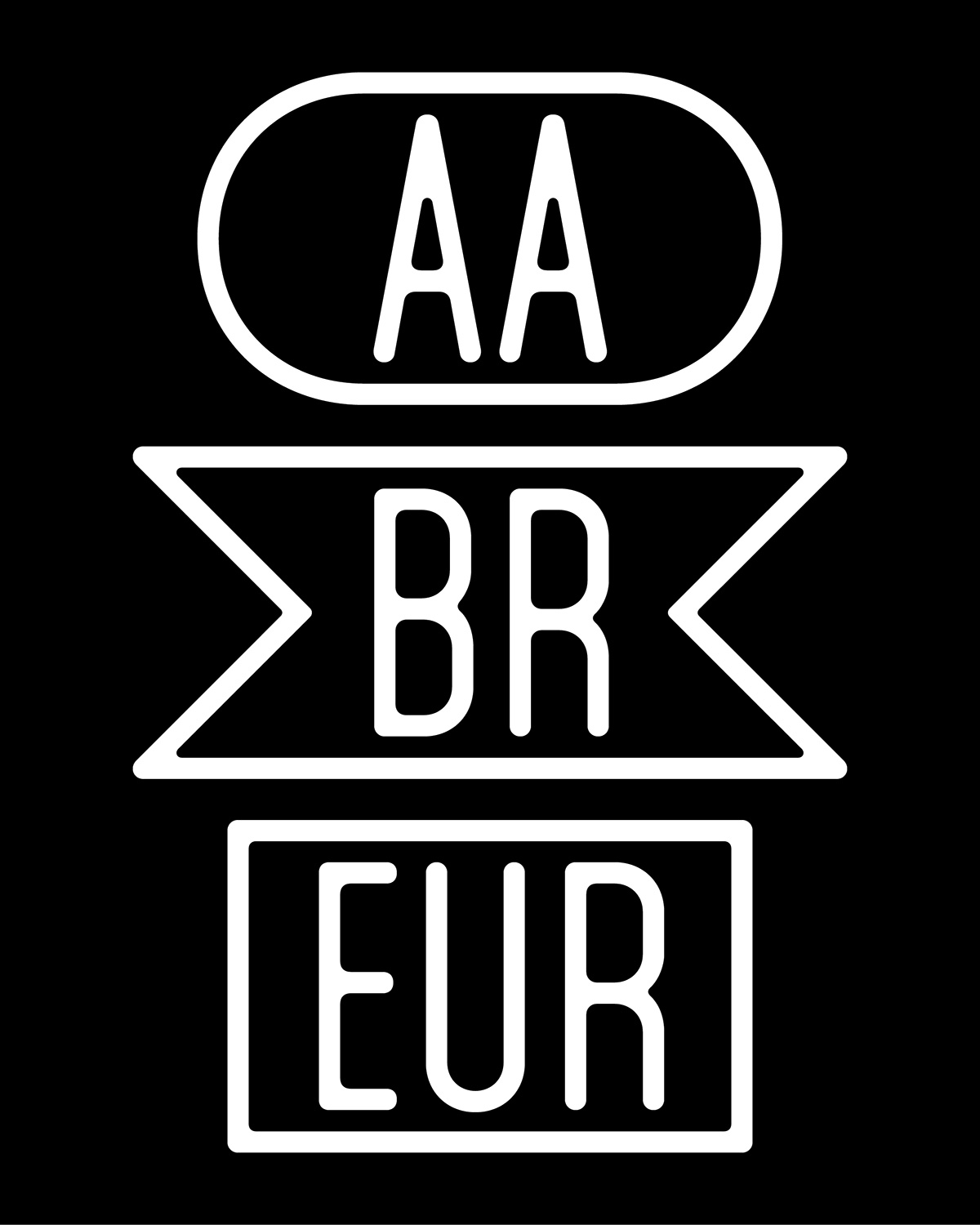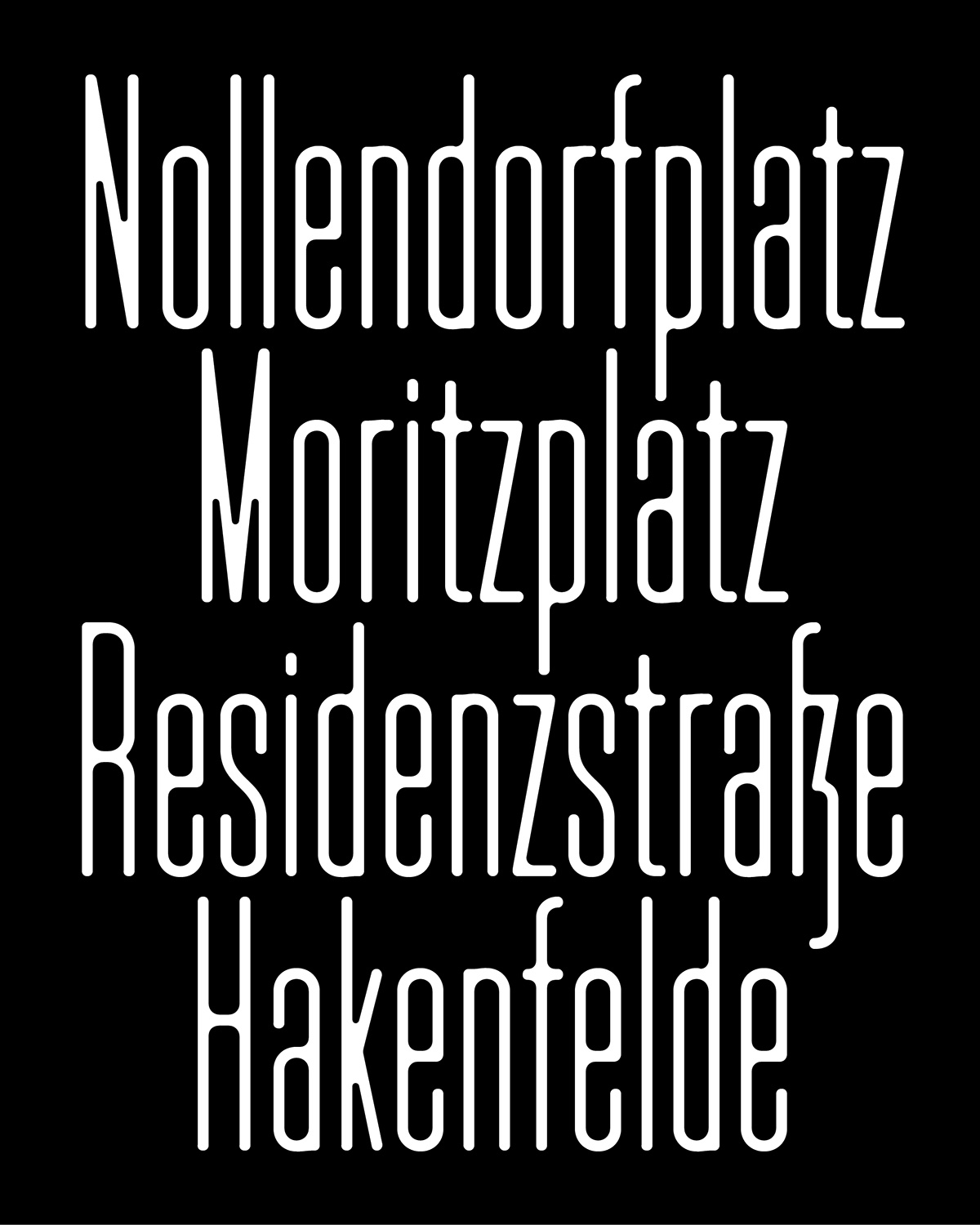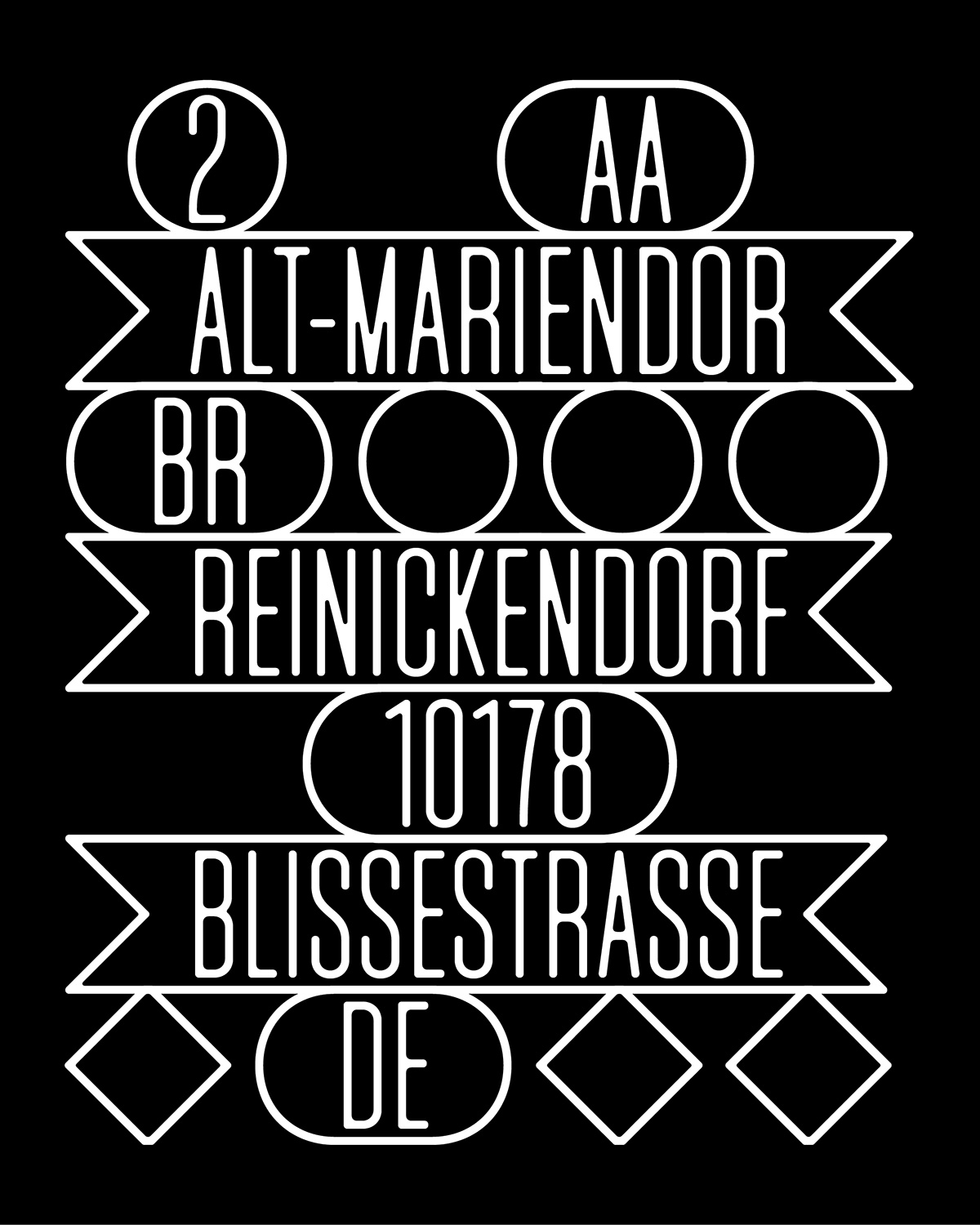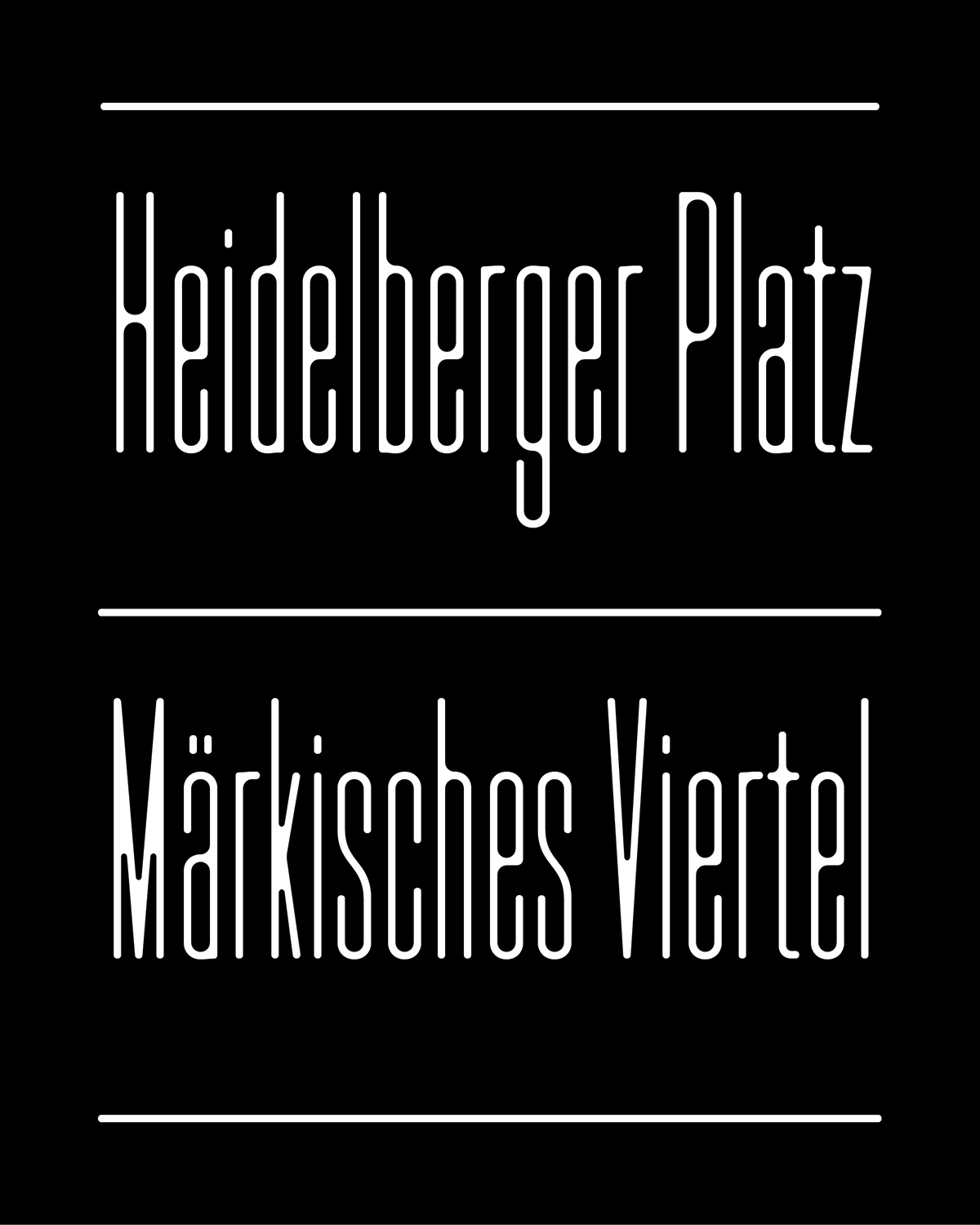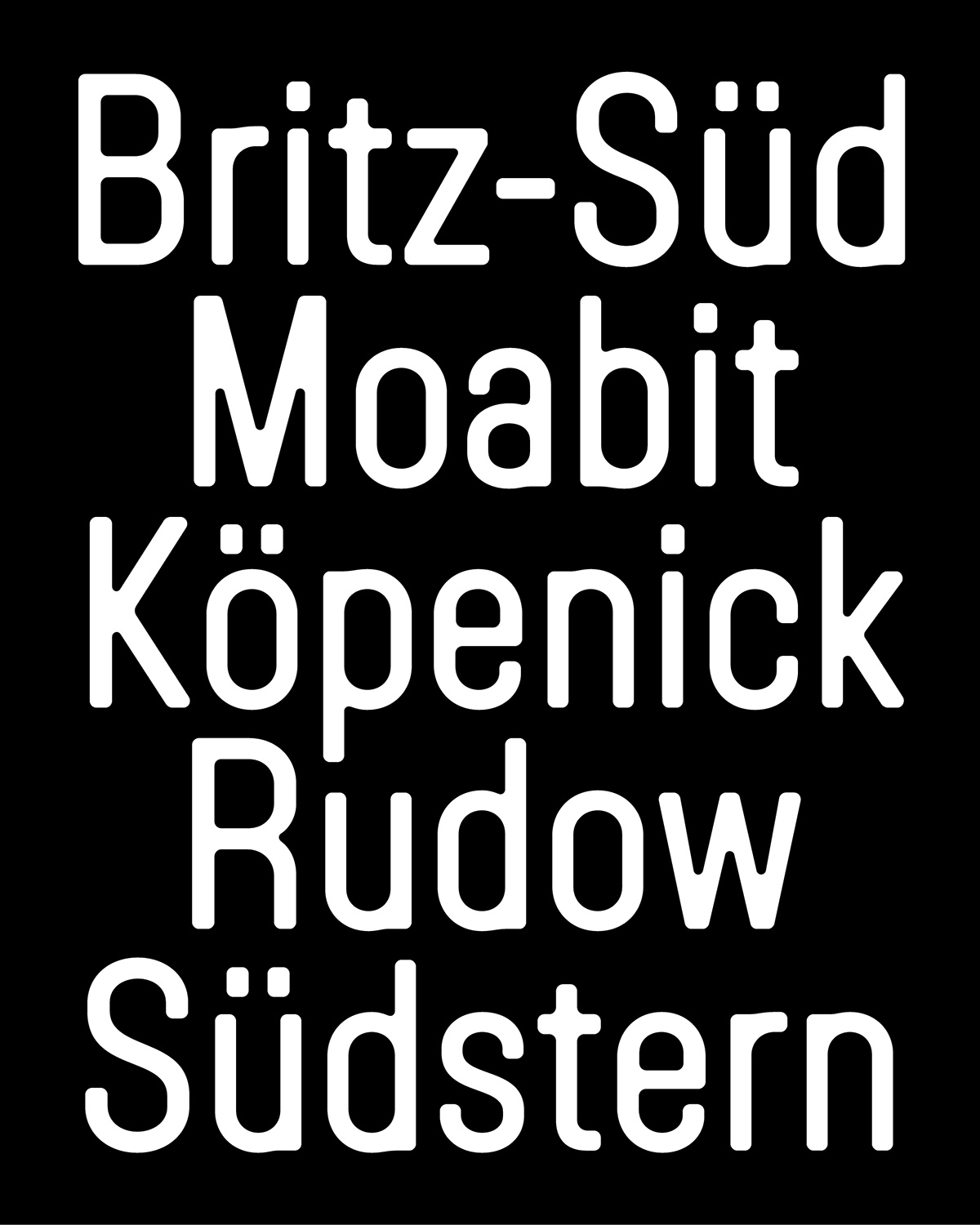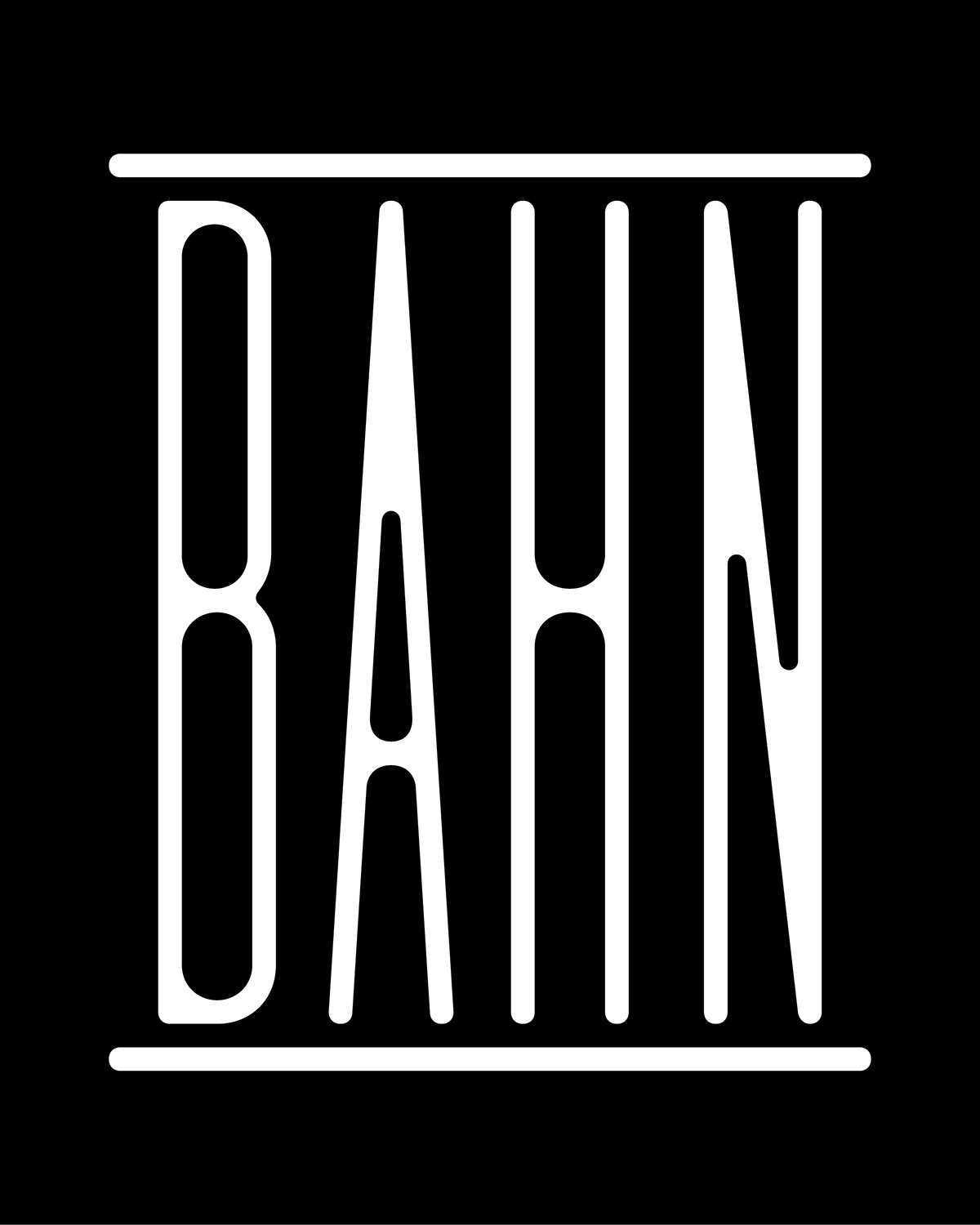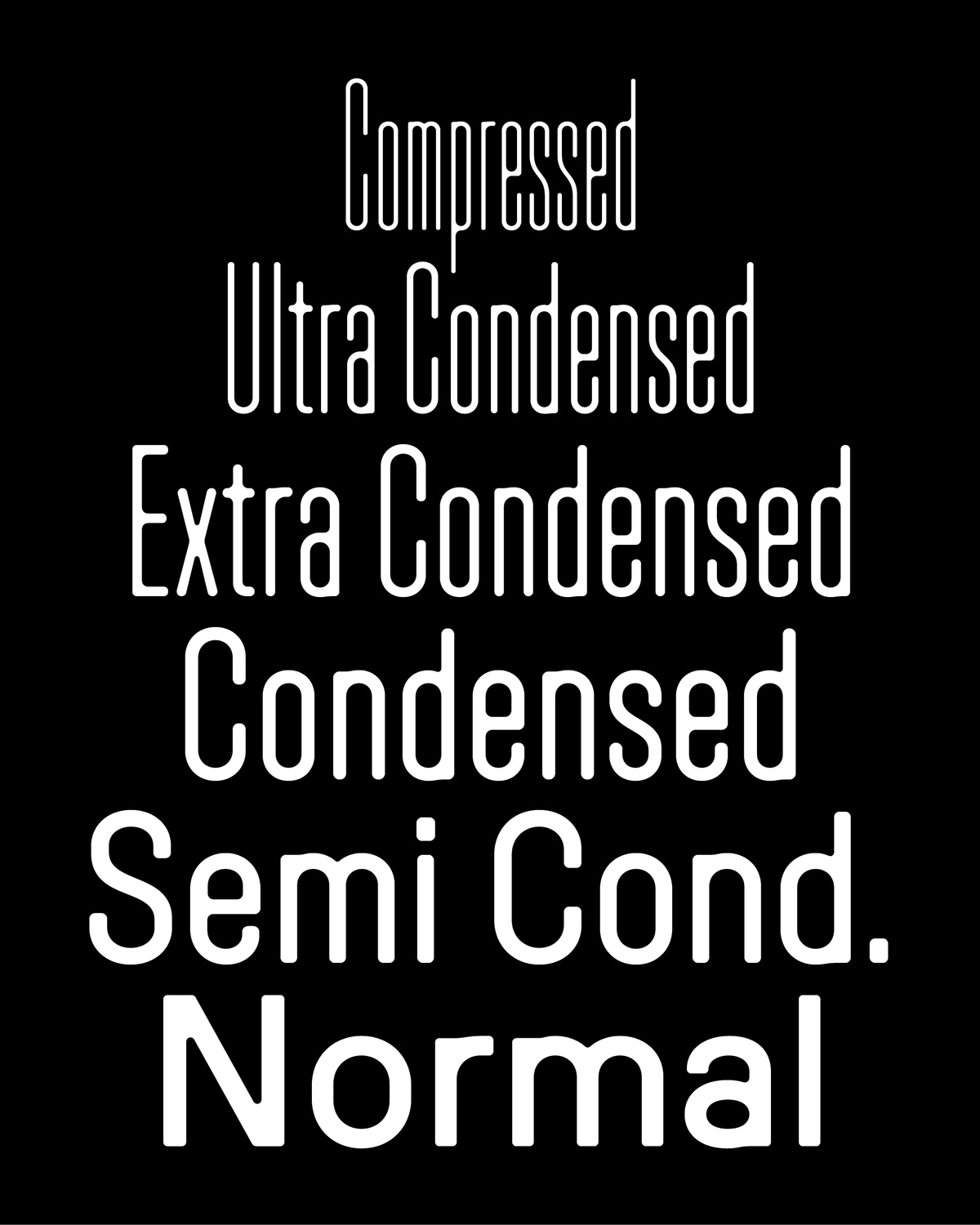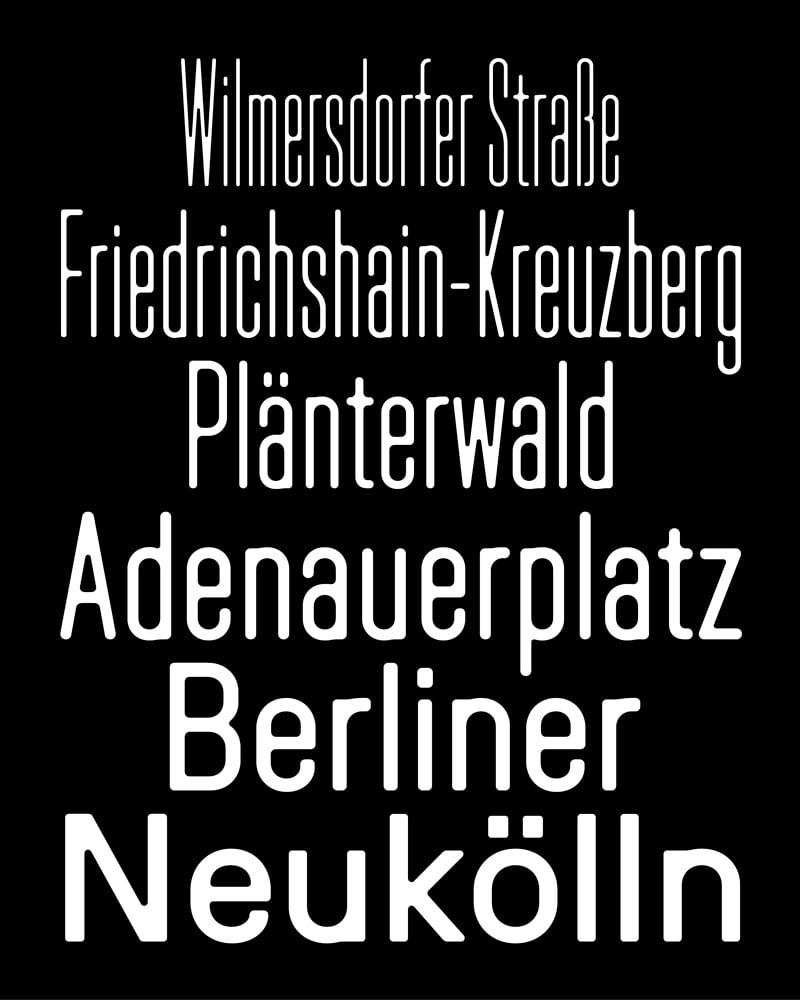
Lost
New Typeface by Federico Parra Barrios
Lost is a typeface that reflects the life choice that its designer, Federico Parra Barrios, made in early 2024, when he left his hometown of Bogotá to settle in Berlin after several years navigating between America and Europe. Discovering his new environment, Federico quickly developed an interest in urban signage and the role of typography in Berlin’s public spaces. He was particularly struck by the metal plaques with embossed letters that are omnipresent throughout the city.
The effects of the embossing—which distorted the metal and altered the letterforms—became the starting point of his research. He was also struck by the way very long words, common in German, are compressed to fit on the narrow plaques. This compression, combined with the embossing, further accentuates the distortions: some details disappear, counters are reduced to an extreme degree, and certain parts of the letters appear darker to the eye. This phenomenon sparked Federico’s interest in exploring what happens between a standard width and a highly condensed one, and in studying how these variations influence the letterforms.
Lost is a variable font that ranges from a standard width—the Normal style—to a very narrow width—the Compressed style. As the letters become narrower, the forms react: the stems become thinner, while certain junctions thicken and round out, echoing the distortions seen on metal plaques. A system of activatable frames, accessible via Stylistic Sets, allows users to create cartouches around words. One can choose between straight, rounded, or pointed terminals, extending the aesthetic of the nameplates that inspired the typeface’s design.